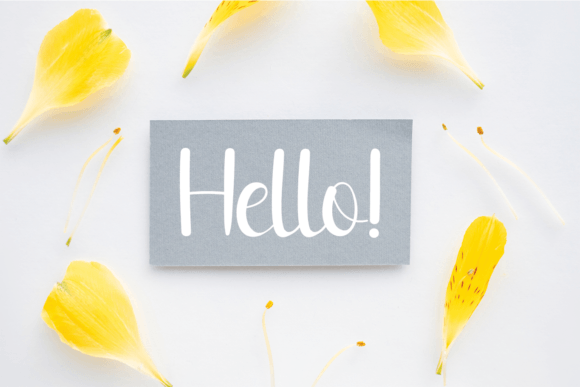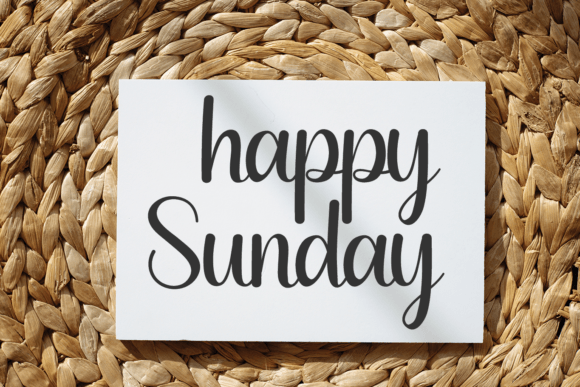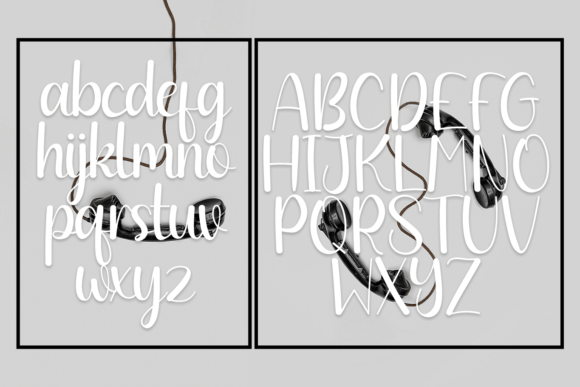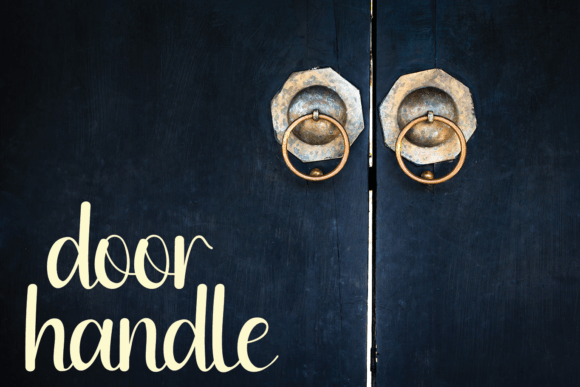
Discover the Elegance of Antique Font: A Timeless Script Font for Your Designs
In the world of typography, few fonts manage to convey the essence of elegance and class as effectively as the Antique Font. This lovely and delicate script font has been meticulously crafted for designers and crafters who seek to infuse their projects with a refreshing and sophisticated look. Whether you’re working on a branding project, creating beautiful wedding invitations, or simply looking to elevate your digital content, Antique Font is an excellent choice.
The Characteristics of Antique Font
Antique Font is distinguished by its intricate and flowing script, which lends an air of refinement to any design. Its delicate strokes and classic letterforms are reminiscent of traditional calligraphy, yet it maintains a modern appeal that makes it versatile for various applications. The font’s unique characteristics include:
- Elegant Letterforms: Each letter in the Antique Font is designed with precision and care, featuring beautiful swashes and flourishes that add to its charm.
- Versatility: Antique Font is suitable for a wide range of projects, from digital content like blogs and social media graphics to print materials such as brochures, posters, and invitations.
- Readability: Despite its ornate appearance, Antique Font maintains excellent readability, making it perfect for both headings and body text.
- Customizability: The font comes with various weights and styles, allowing designers to experiment with different looks and tones.
Uses of Antique Font in Design
The applications of Antique Font are vast and varied. Here are some popular ways designers and crafters are using this beautiful font:
- Wedding and Event Stationery: Create stunning wedding invitations, save-the-date cards, and event posters that set the tone for an elegant and memorable occasion.
- Branding and Packaging: Elevate your brand’s visual identity with Antique Font, perfect for luxury brands, boutiques, and high-end products.
- Digital Content: Enhance your blog posts, social media graphics, and website headers with a touch of sophistication and class.
- Art and Craft Projects: Use Antique Font in your craft projects, such as handmade cards, journaling, and scrapbooking, to add a personal and elegant touch.
Tips for Using Antique Font Effectively
To make the most of Antique Font, consider the following tips:
- Pair with Simplicity: Balance the intricacy of Antique Font with simpler design elements to avoid visual overload.
- Experiment with Colors: While Antique Font looks stunning in classic colors like black and gold, don’t be afraid to experiment with other hues to match your brand or project’s color scheme.
- Consider Legibility: Ensure that the font size and line spacing are optimized for readability, especially when using the font for body text.
- Mix and Match: Combine Antique Font with other complementary fonts to create visual interest and hierarchy in your designs.
Antique Font is a beautiful and versatile script font that can add a touch of elegance and sophistication to your designs. Whether you’re a professional designer or a crafter, this font offers the perfect blend of classic charm and modern appeal. With its delicate strokes, elegant letterforms, and excellent readability, Antique Font is sure to become a staple in your typography collection. So, why wait? Explore the possibilities of Antique Font today and elevate your designs to new heights of elegance and class.